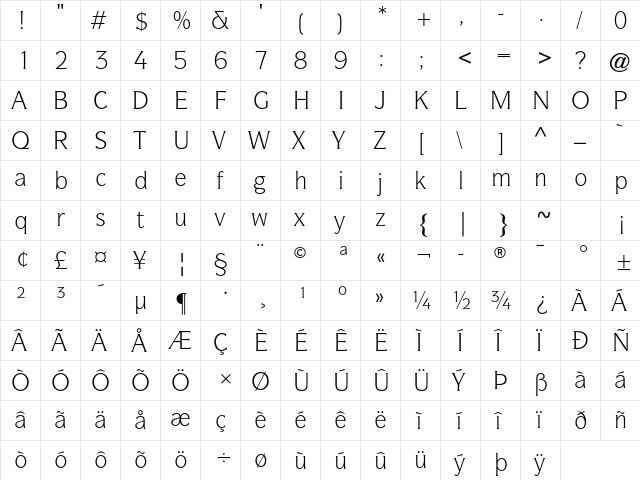
ITC Symbol Std Book
| Designer | Aldo Novarese |
Design Context for ITC Symbol Std Typeface
ITC Symbol Std offers clean, dependable letterforms without strong stylistic allegiance, making it a practical choice for designers who need flexibility.